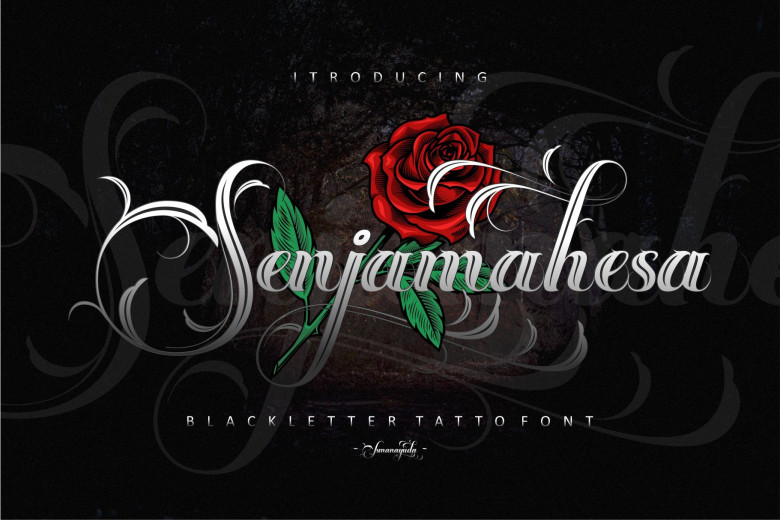
Senjamahesa Font
Senjamahesa is an unusual collection of shapes inspired by plants, especially flowers. It has many uses ranging from tattoos and calling cards to bands logos apparel logos or shop logos, as well as industrial uses.
Senjamahesa Blackletter Font